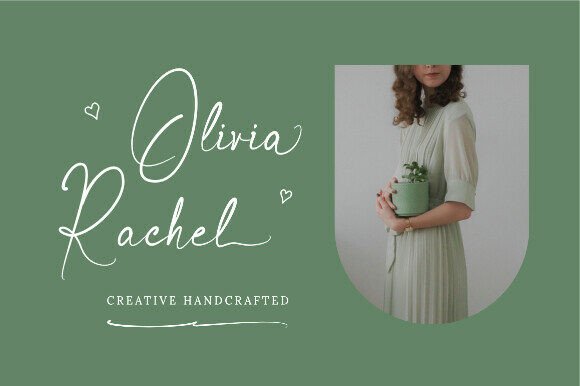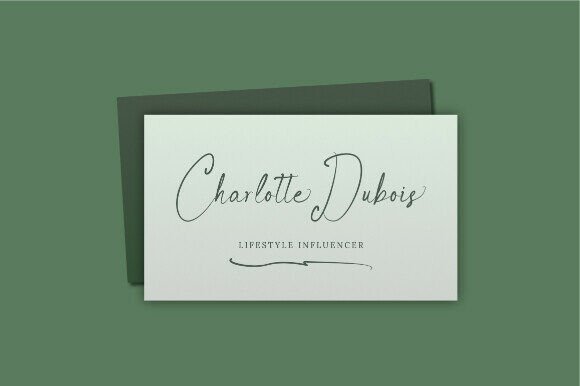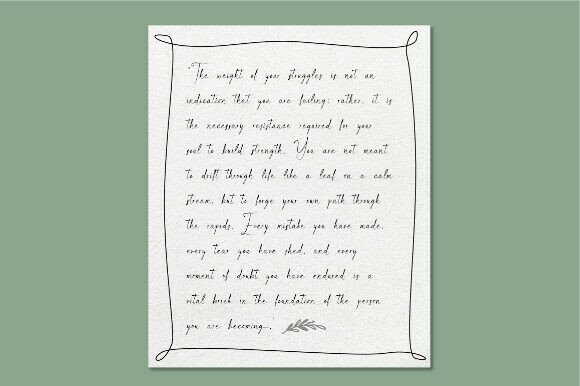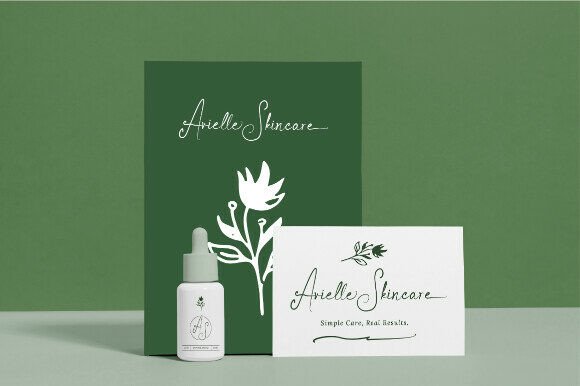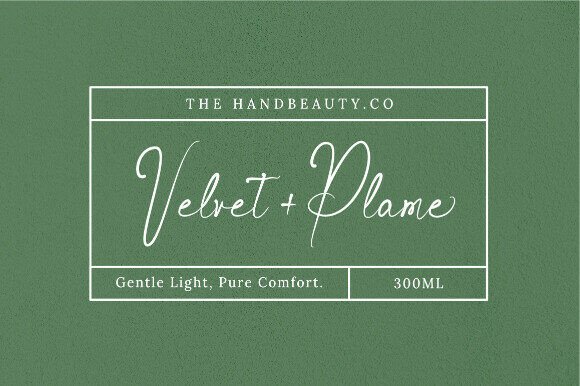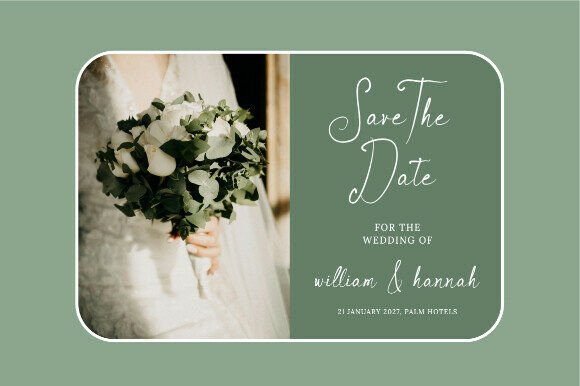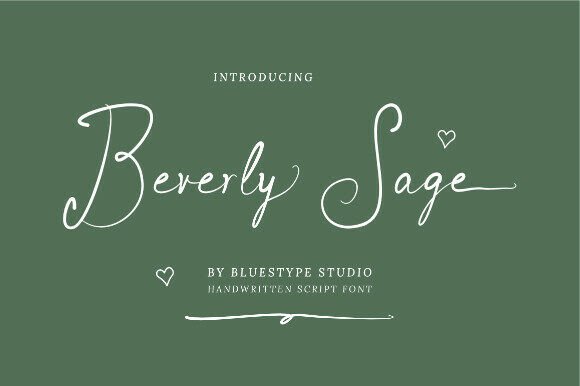
Beverly Sage Font: Bringing Organic Charm to Your Design Projects
In the world of typography, fonts play a crucial role in setting the tone and aesthetic of a design project. For designers and crafters looking to add a personal, approachable, and playful touch to their work, the Beverly Sage Font is an excellent choice. This natural, whimsical handwritten font is crafted from authentic, real-life hand strokes, making it perfect for projects that require a unique and organic charm.
The Beauty of Imperfection
The Beverly Sage Font is designed to capture the imperfect beauty of genuine pen-on-paper movement. Each character is carefully crafted to reflect the natural flow and movement of handwriting, with subtle imperfections and variations that give it a distinctly human feel. This font is not about precision or perfection; it’s about embracing the beauty of imperfection and the uniqueness of human expression.
A Perfect Choice for Designers and Crafters
Whether you’re a designer working on a branding project, a crafter creating handmade cards or invitations, or a DIY enthusiast looking for a unique font for your blog or social media, the Beverly Sage Font is an excellent choice. Its natural, whimsical feel makes it perfect for projects that require a personal touch, such as:
• Handmade cards and invitations
• Branding and packaging design
• Blog and social media graphics
• DIY projects and crafts
• Wedding and event planning
Key Features of the Beverly Sage Font
The Beverly Sage Font has several key features that make it an excellent choice for designers and crafters:
• Natural and whimsical feel: The font’s natural, hand-crafted feel gives it a unique and organic charm.
• Authentic hand strokes: Each character is crafted from authentic, real-life hand strokes, making it perfect for projects that require a personal touch.
• Imperfect beauty: The font’s subtle imperfections and variations give it a distinctly human feel.
• Playful and approachable: The Beverly Sage Font is perfect for projects that require a playful and approachable aesthetic.
Tips for Using the Beverly Sage Font
To get the most out of the Beverly Sage Font, here are a few tips:
• Use it for headlines and titles: The font’s natural, whimsical feel makes it perfect for headlines and titles.
• Pair it with other fonts: The Beverly Sage Font pairs well with other fonts, such as serif and sans-serif fonts.
• Experiment with colors and textures: The font’s natural feel makes it perfect for experimenting with different colors and textures.
The Beverly Sage Font is a unique and versatile font that can add a touch of organic charm to your design projects. Its natural, whimsical feel and imperfect beauty make it perfect for projects that require a personal, approachable, and playful aesthetic. Whether you’re a designer, crafter, or DIY enthusiast, this font is sure to become a favorite in your collection.